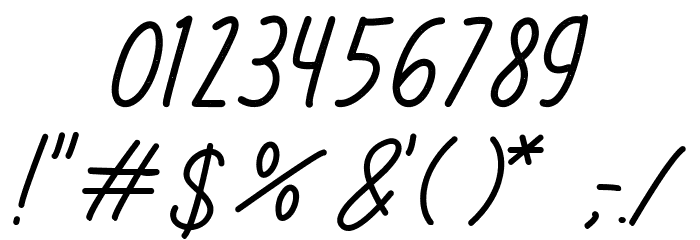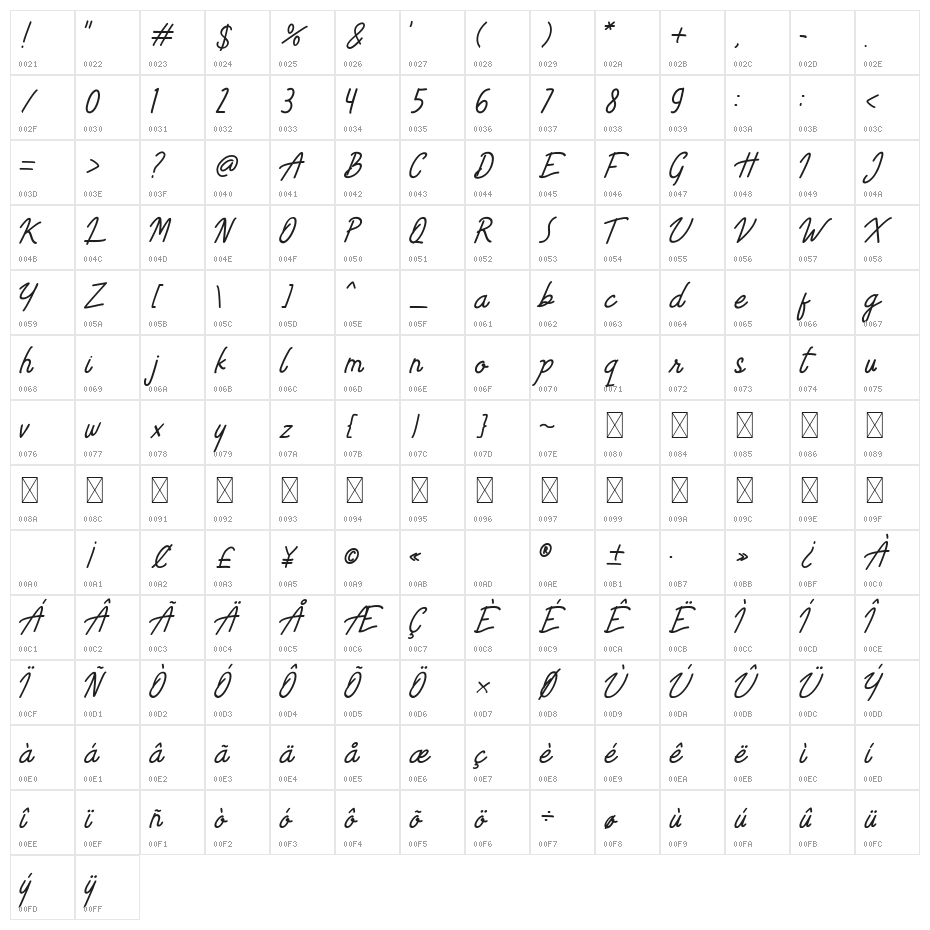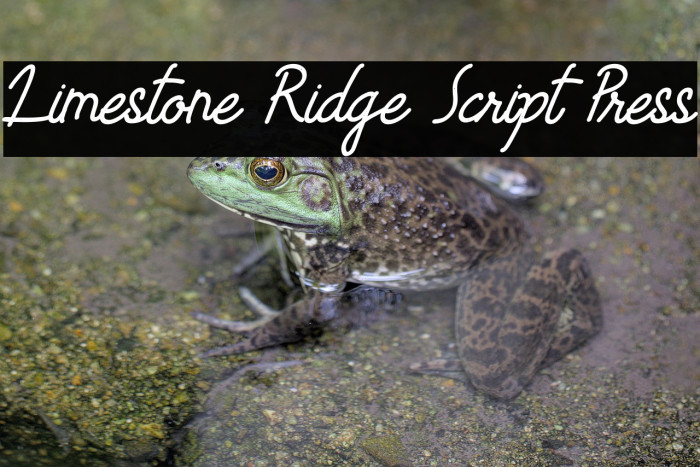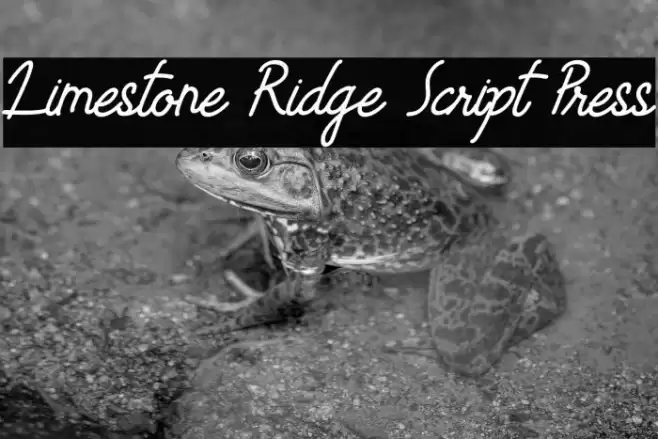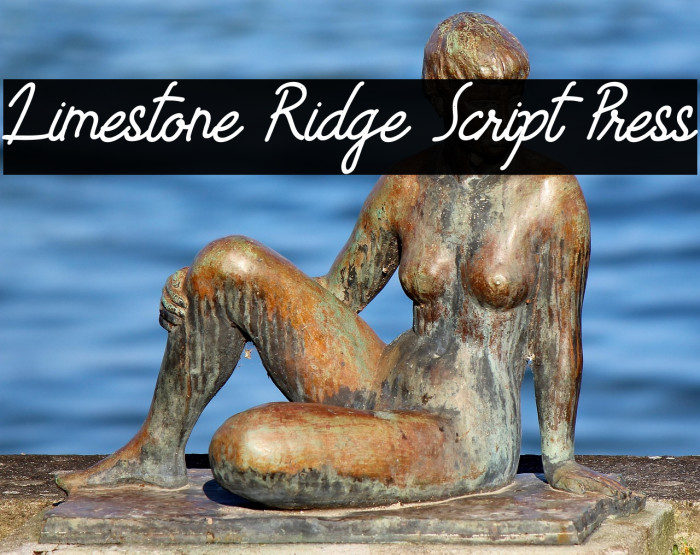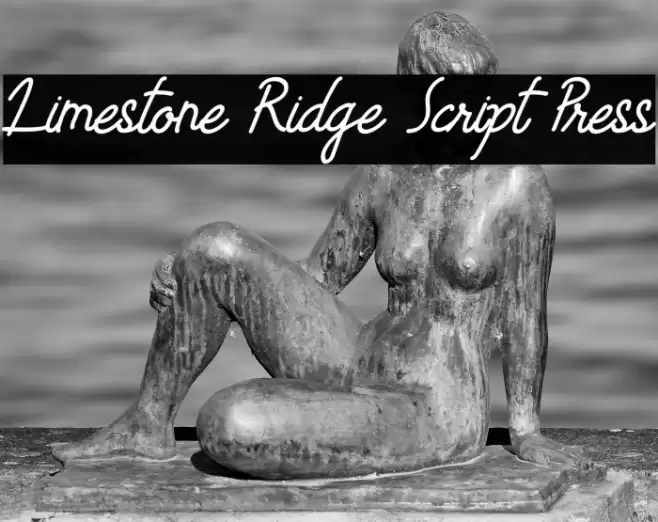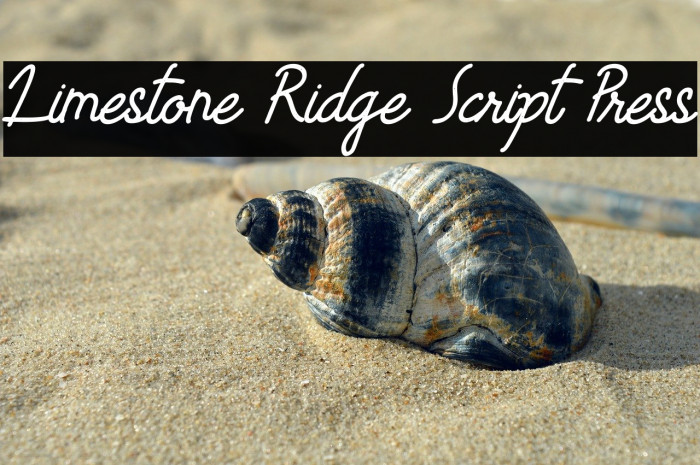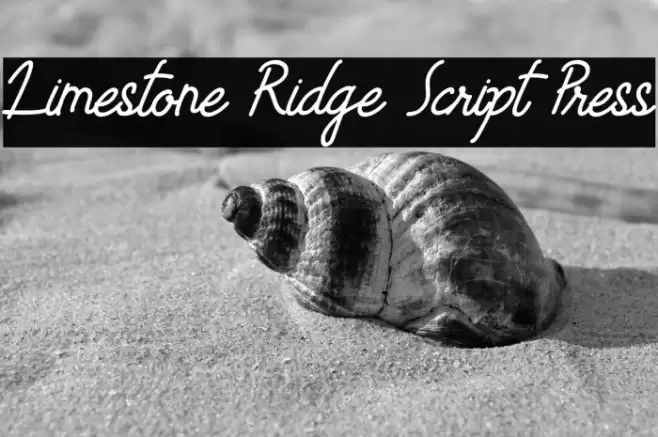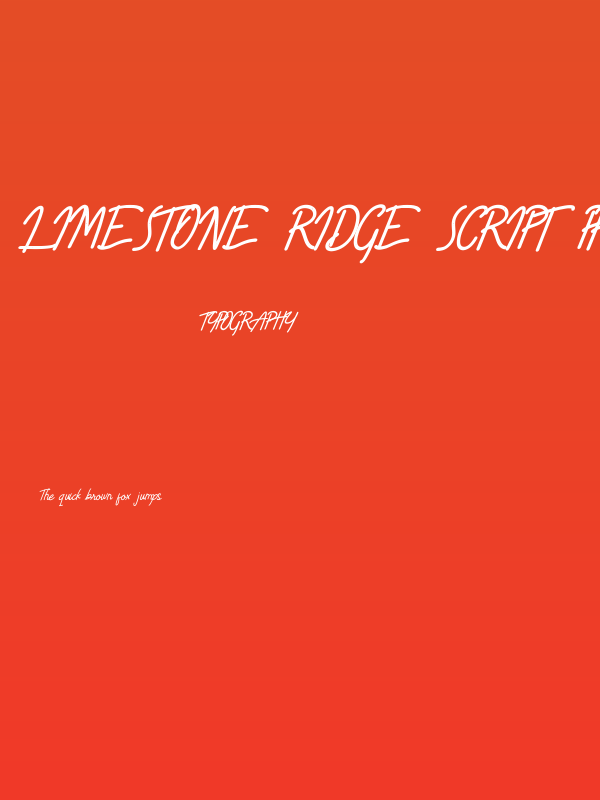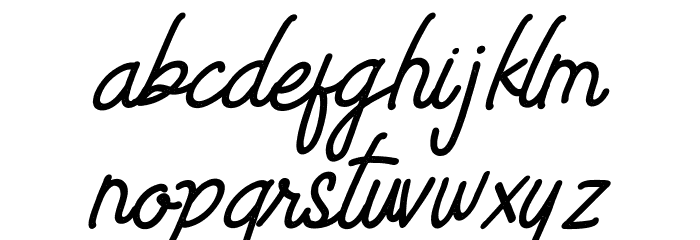
Limestone Ridge Script Press Font
Limestone Ridge Script Press Description
This font exudes a lively and energetic script style, characterized by its fluid and continuous strokes. The uppercase letters are bold and dynamic, with a slight slant that adds a sense of motion and elegance. The lowercase letters maintain a consistent flow, enhancing readability while retaining a hand-drawn aesthetic. Numbers and special characters are crafted with the same attention to detail, ensuring uniformity across all elements. The overall appearance is both playful and sophisticated, making it suitable for a variety of creative applications.